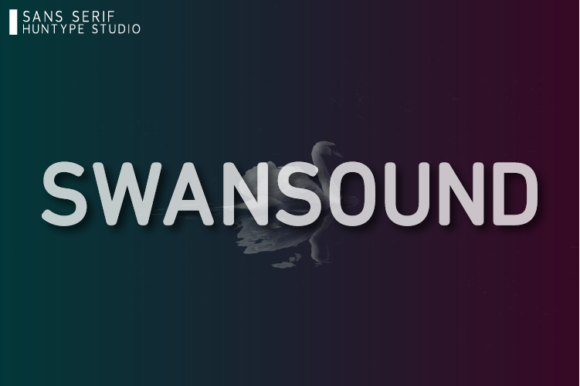
**Introducing Swansound Font: The Majestic Choice for Timeless Elegance**
Welcome to the world of Swansound, a captivating sans serif font that weaves a tapestry of grace and refinement. Each letterform dances across the canvas, imbued with the timeless allure of traditional typography. Yet, Swansound transcends the boundaries of the past, embracing a contemporary spirit that resonates with modern sensibilities.
Let Swansound cradle your baby's name in its warm embrace, bestowing upon it an aura of timeless charm. Its Latin details, meticulously crafted with delicate contrasts, lend an air of sophistication to your precious words. Whether gracing invitations, birth announcements, or cherished keepsakes, Swansound will etch your little one's name into the annals of memory with an elegance that endures.
Beyond baby names, Swansound's versatility shines through. Its well-balanced proportions and subtle nuances make it a perfect match for a wide array of design projects. Whether you're crafting a captivating logo, creating alluring marketing materials, or designing a website that exudes sophistication, Swansound will elevate your creations to new heights.
Embrace the allure of Swansound, where classic beauty meets contemporary grace. Let its enchanting forms inspire you, captivate your audience, and create a lasting legacy of elegance with every stroke.